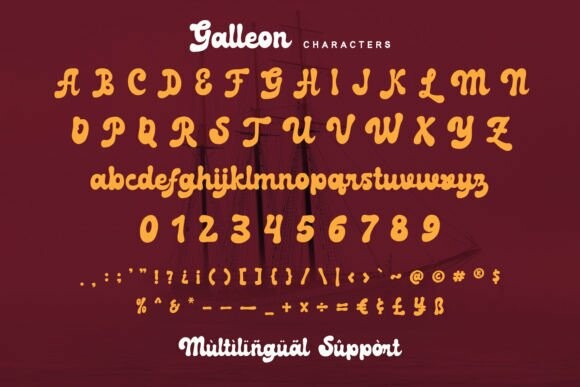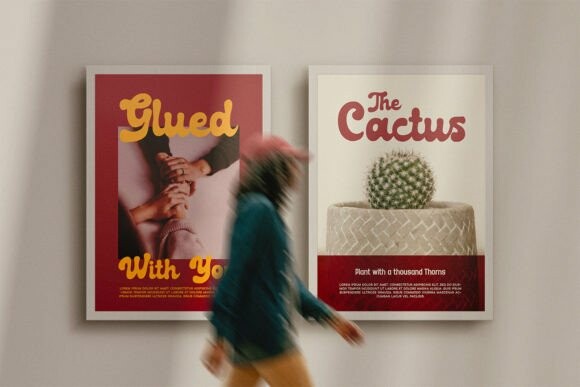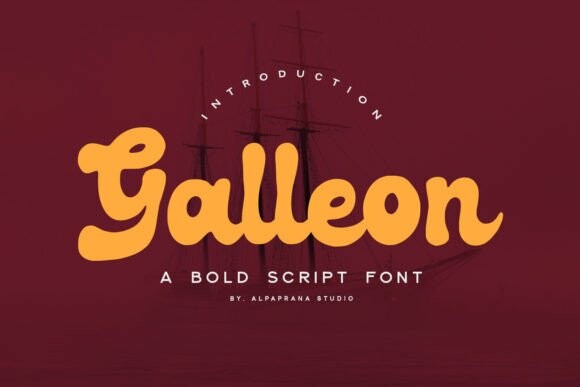
Galleon Script Font
Designer: alpapranastudio
Galleon Script Font is a stylish, bold script font that commands attention with its dynamic curves and strong presence. Perfect for logos, headlines, and branding, its confident strokes exude elegance and power. This font seamlessly blends sophistication with impact, making any design stand out effortlessly.